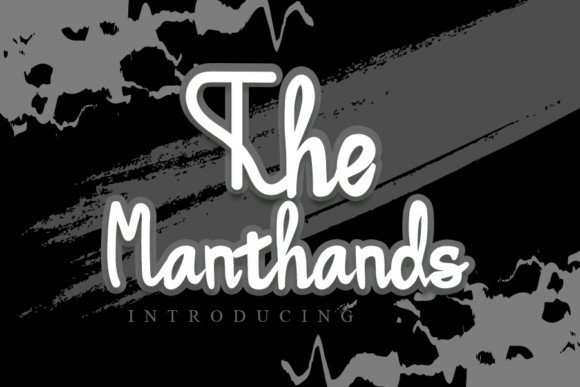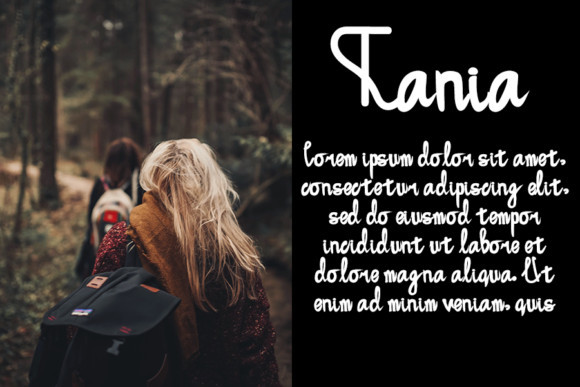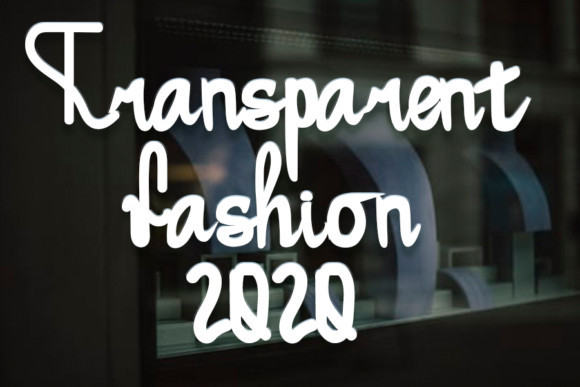
The Manthands Font
The Manthands is a magical handwritten font carefully created with a touch of elegance. Whether it’s for web, print, moving images or anything else this font will look spectacular.